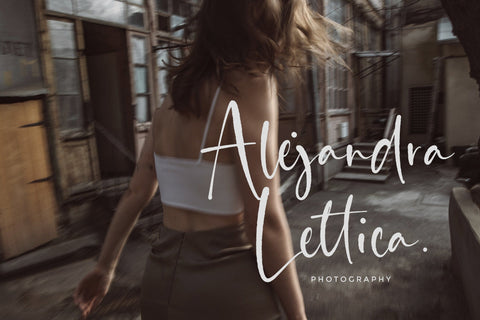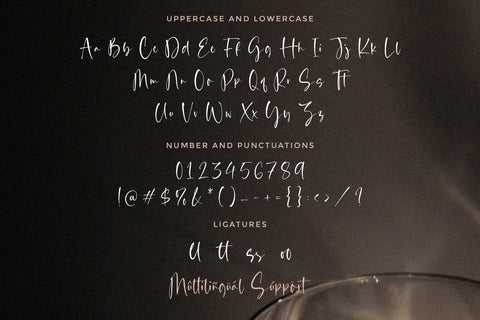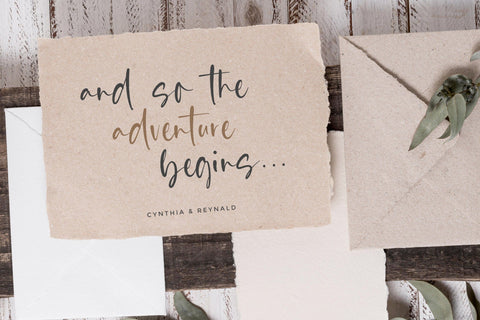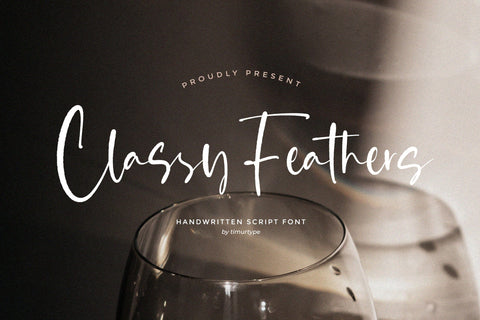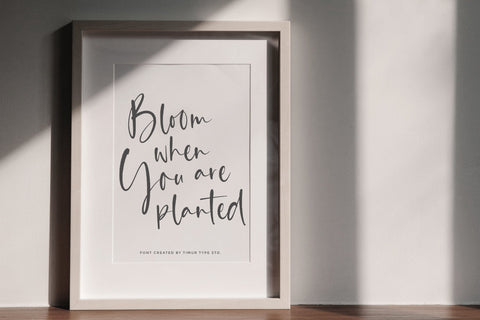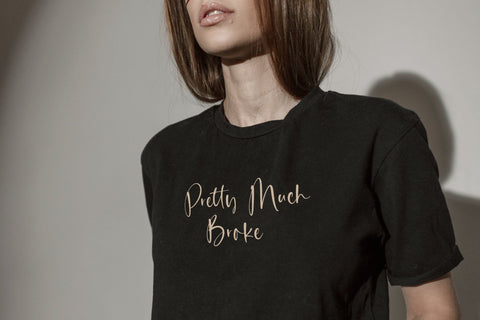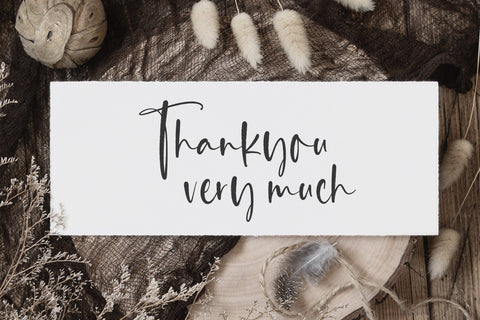
Classy Feathers - Handwritten Script font
Proudly Present, Classy Feathers
Classy Feathers A Handwritten Script Font , which was created with great care and specially created for you
Classy Feathers is perfect for product packaging, branding project, megazine, social media, wedding, or just used to express words above the background.
Classy Feathers also multilingual support.